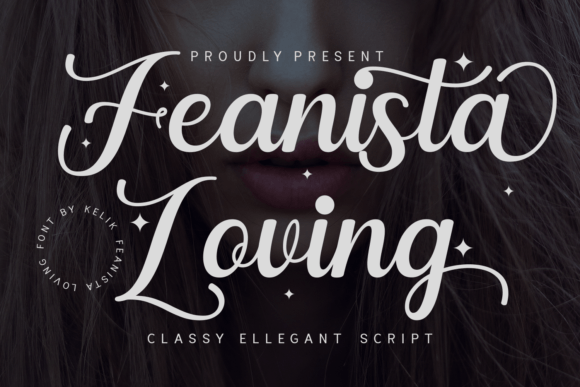
Presenting Feanista Loving Font: An Ode to Sophistication and Grace.
Immerse yourself in the world of Feanista Loving, a captivating script font family that embodies elegance and sophistication. This extraordinary typeface is meticulously crafted to leave an enduring impression, featuring a symphony of stylistic variations that cater to your every creative need.
With Feanista Loving, you hold the key to unlocking a world of creative possibilities. Whether you're a branding visionary, a printing maestro, an illustration aficionado, or simply a design enthusiast, this font is your perfect companion. Its versatile nature seamlessly adapts to a myriad of projects, effortlessly elevating them to new heights of sophistication.
As you glide through the curves and intricate details of Feanista Loving, you'll discover a font that is both visually stunning and functionally versatile. Its graceful strokes and meticulous design make it an exquisite choice for those seeking to add a touch of opulence and allure to their creations.
Feanista Loving is more than just a font; it's an artistic masterpiece that breathes life into your designs. Let its enchanting beauty captivate your audience, leaving them in awe of your creative genius. Dive into the world of Feanista Loving today and experience the transformative power of true typographic artistry.